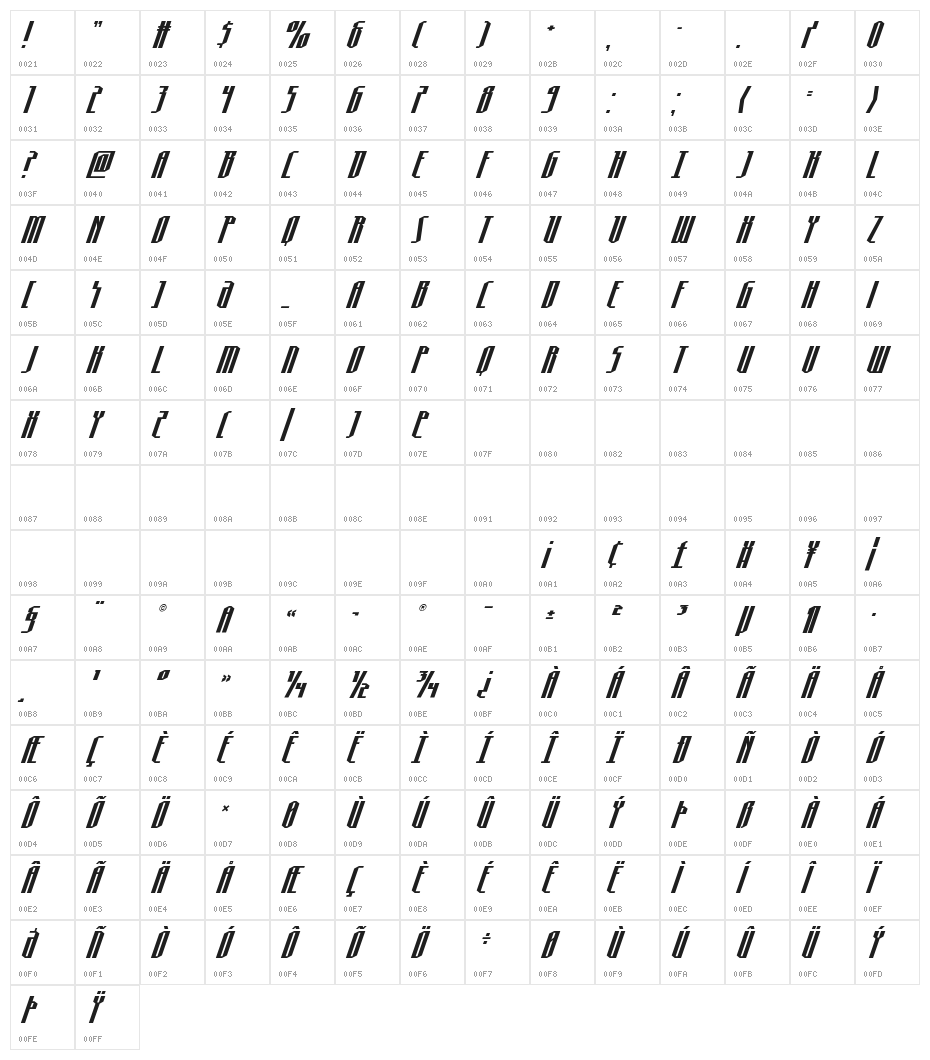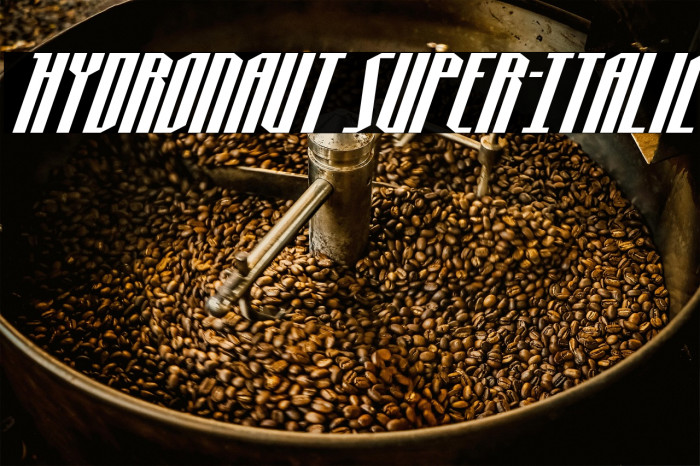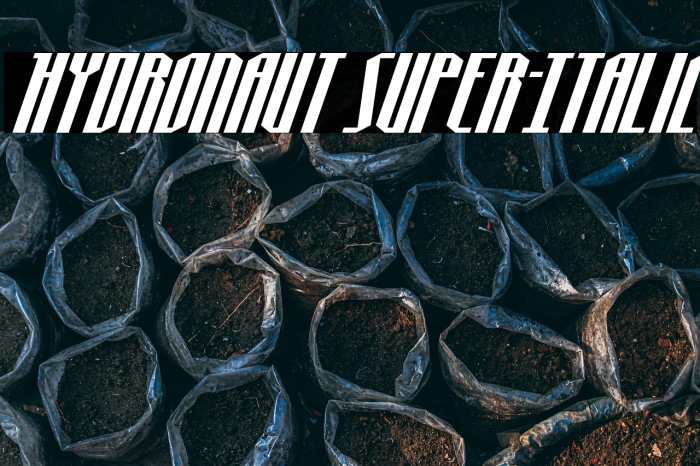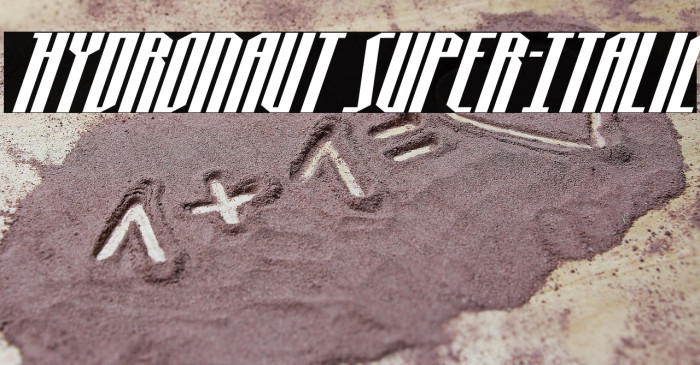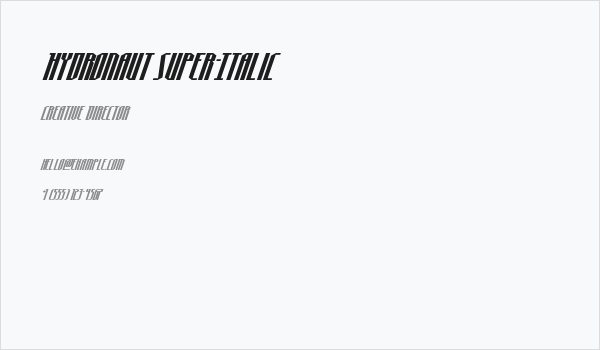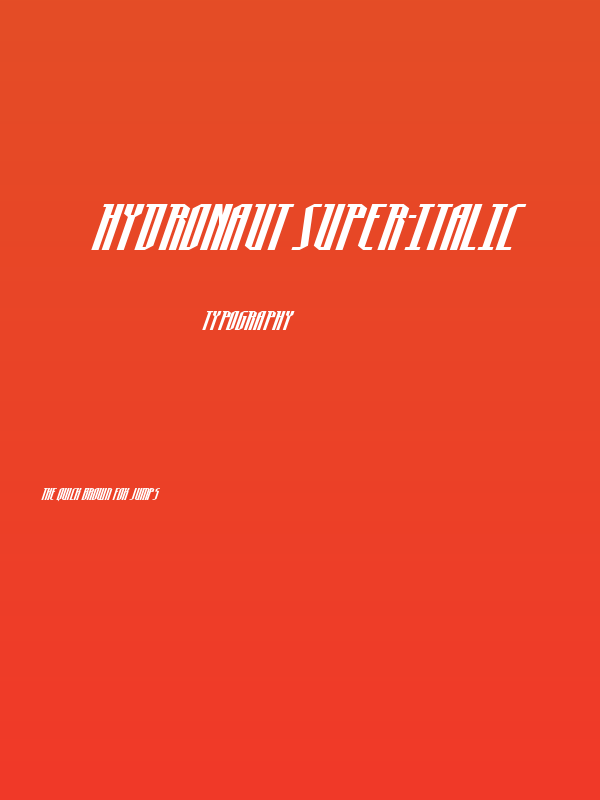
Hydronaut Super-Italic Font
Hydronaut Super-Italic Description
This font features a bold and dynamic design with a strong italic slant, giving it a sense of motion and energy. The characters are sharply angled, with a futuristic and modern aesthetic that is both striking and memorable. The uppercase and lowercase letters maintain a consistent style, with elongated forms and pointed edges that enhance its sleek appearance. The numbers and special characters follow the same design principles, ensuring uniformity across all elements. This font is ideal for projects that require a bold statement and a contemporary feel.
Proposed ProjectsIdeal for branding, sports team logos, futuristic posters, and dynamic advertising campaigns.